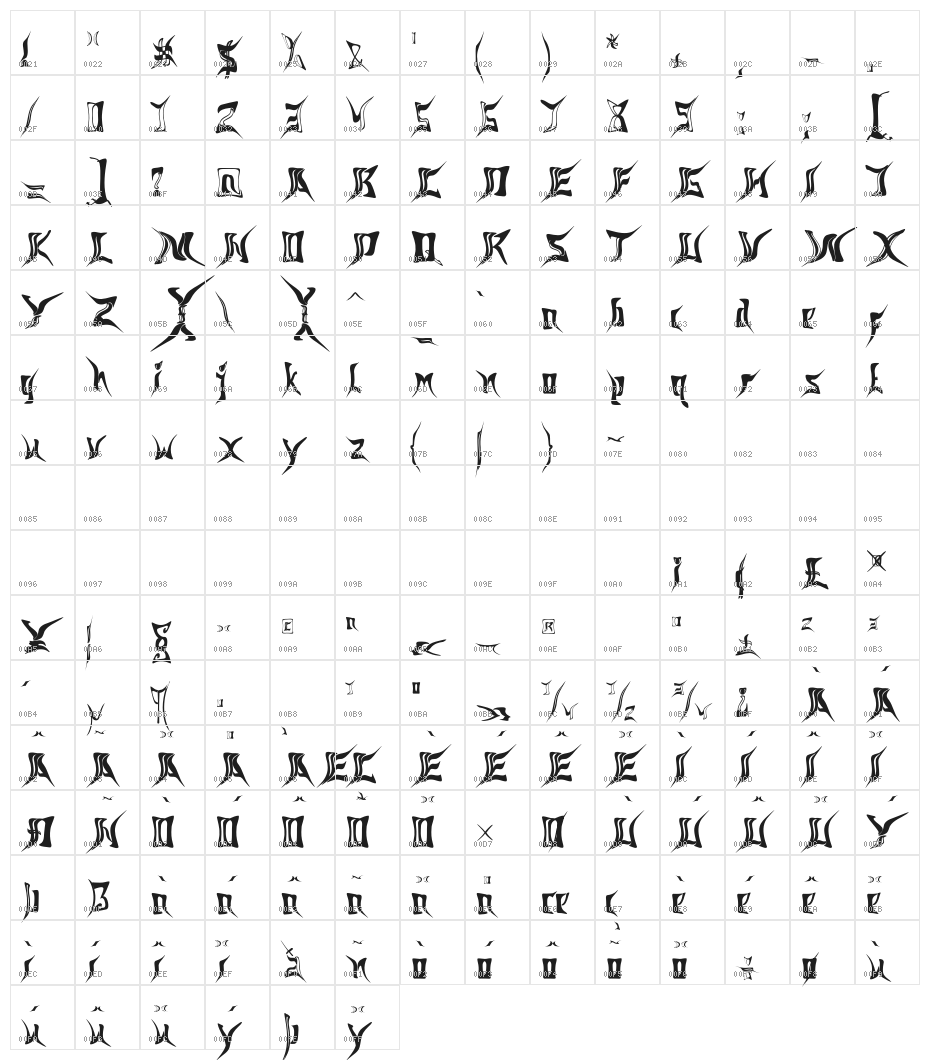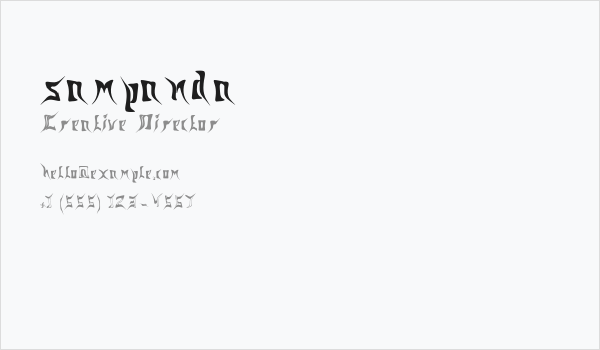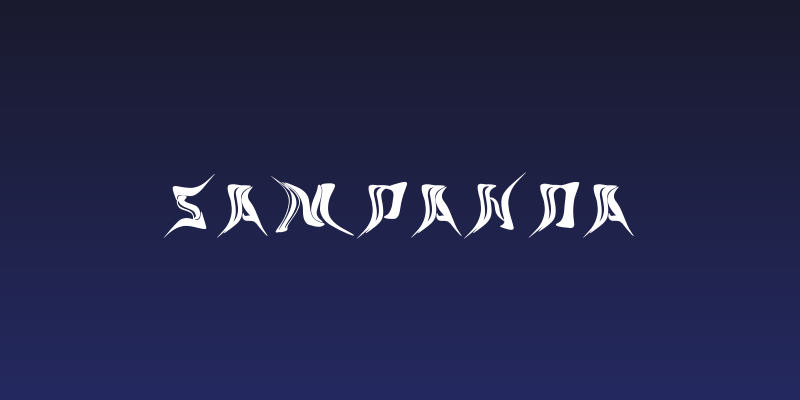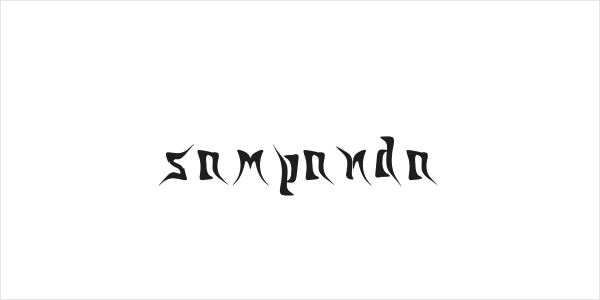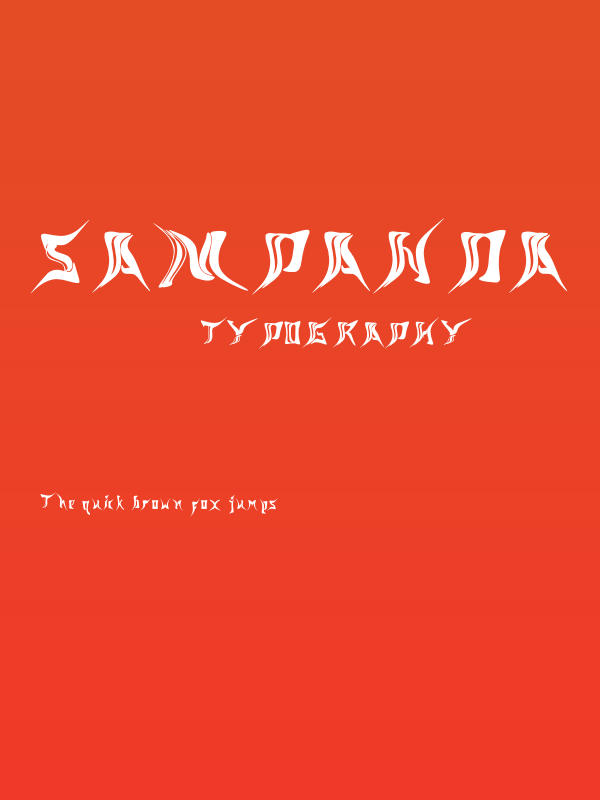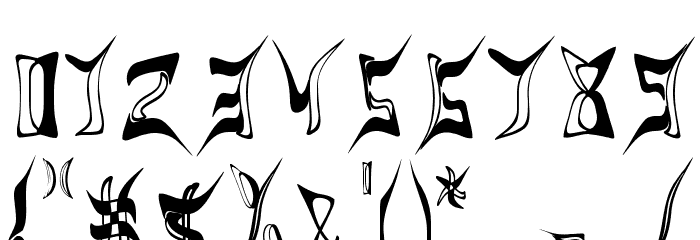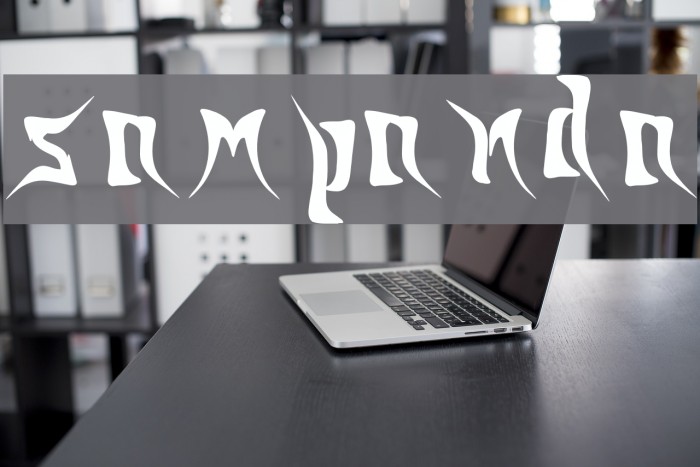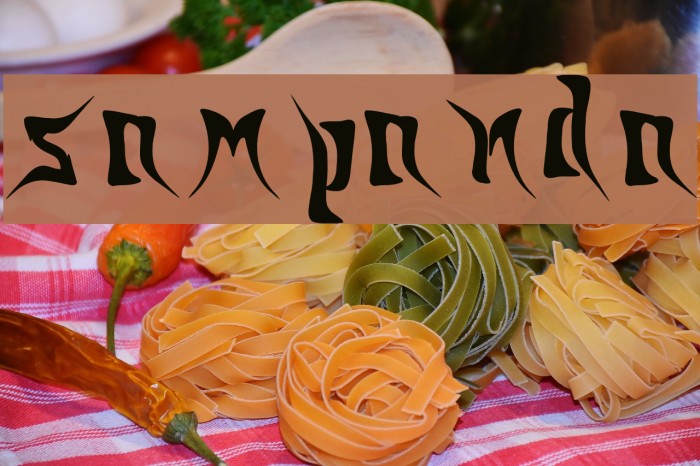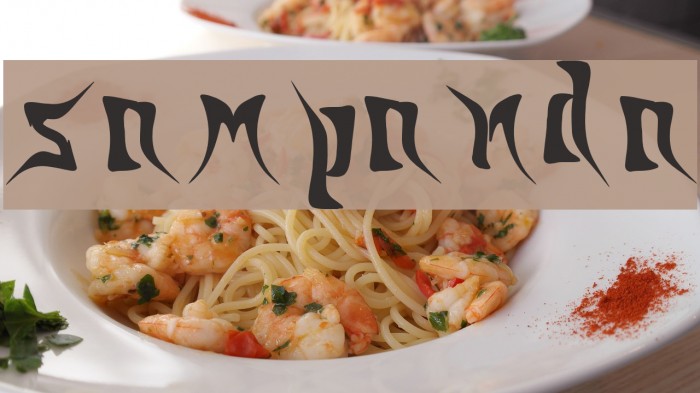
sampanda Font
sampanda Description
This font features a highly decorative and artistic style, characterized by sharp, angular lines and dramatic curves. Each letterform is unique, with a dynamic flow that suggests movement and energy. The uppercase letters have a bold presence, while the lowercase letters maintain the same intricate design, offering a cohesive look across the alphabet. The numerals and special characters are equally stylized, maintaining the font's overall aesthetic. This font is ideal for projects that require a striking and unconventional appearance, making it perfect for creative and artistic endeavors.
| Proposed Projects | Ideal for album covers, posters, branding for edgy or artistic brands, and creative digital artwork. |